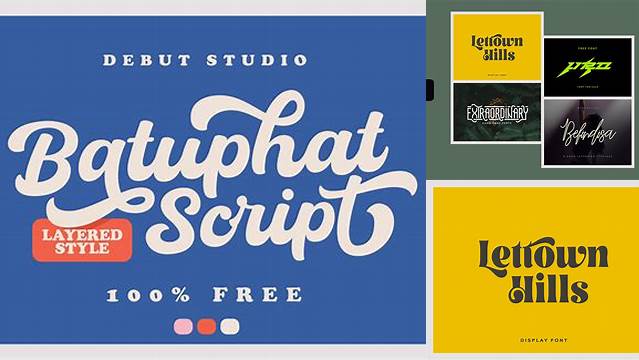
Unique Fonts: Free Downloads To Elevate Your Design
Are you on the hunt for unique fonts to elevate your creative projects? Look no further! In this guide, we'll dive into the world of typography and explore the best resources for free font downloads. Whether you're a graphic designer, a web developer, or simply someone who loves to experiment with different typefaces, finding the perfect font can make all the difference. Let's get started and discover the amazing world of unique and free fonts available for you today!
Why Unique Fonts Matter
In the realm of design, unique fonts serve as a powerful tool to convey personality and style. The right typeface can transform a simple message into an impactful statement, capturing attention and leaving a lasting impression. Think about it, guys: how often has a specific font caught your eye on a poster, website, or logo? That's the magic of typography at work!
Unique fonts can help you stand out from the crowd, especially in a world where visual content is king. Using common, overused fonts can make your designs blend in, but opting for something different can instantly elevate your work. Whether you're designing a logo, creating marketing materials, or working on a website, selecting the right font is crucial for communicating your brand's message and values. A bold, modern font might be perfect for a tech startup, while an elegant, serif font could be ideal for a luxury brand. The possibilities are endless, and the impact is undeniable.
Furthermore, the psychology of fonts is a fascinating aspect to consider. Different typefaces evoke different emotions and associations. A playful, handwritten font might give off a friendly and approachable vibe, while a strong, sans-serif font can project confidence and professionalism. Understanding these nuances allows you to strategically use fonts to connect with your target audience on an emotional level. When you choose a unique font that aligns with your message and brand, you create a cohesive and compelling visual experience.
Where to Find Free and Unique Fonts
Behance and Dribbble
Behance and Dribbble are not just platforms for showcasing design work; they're also great places to discover free fonts. Many designers share their font creations as freebies on these platforms, often as a way to promote their work and connect with the design community. Keep an eye out for free font announcements in project descriptions and blog posts. These platforms are goldmines for finding unique and exclusive fonts that you won't find anywhere else.
Creative Market Free Goods
Creative Market is a marketplace for design assets, but they also offer a selection of free goods every week. This often includes unique fonts, graphics, and templates. Signing up for their newsletter ensures you'll be notified when new freebies are available. Creative Market is a great way to access premium-quality fonts without breaking the bank.
Selecting the perfect font can feel like a daunting task, especially with so many options available. Here are some tips to help you navigate the world of typography and choose the right font for your project:
Consider Your Project's Purpose
Before diving into the font selection process, take a step back and consider the purpose of your project. What message are you trying to convey? What is the tone and style you want to achieve? A formal event invitation will require a different font than a children's book cover. Understanding your project's goals will help you narrow down your options and choose a font that aligns with your vision. For instance, if you are creating a logo for a technology company, a modern sans-serif font may be ideal. If you are designing a wedding invitation, an elegant script font may be more appropriate.
Showcasing Some Unique Fonts You Can Download for Free
To give you a head start, let's showcase some unique fonts that you can download for free:
Montserrat
Montserrat is a popular sans-serif font that exudes modern elegance. Its clean lines and geometric shapes make it a versatile choice for a wide range of projects, from website headers to branding materials. Montserrat is available in a variety of weights, giving you plenty of options to play with.
Raleway
Raleway is another excellent sans-serif font with a slightly more sophisticated feel. Its distinctive